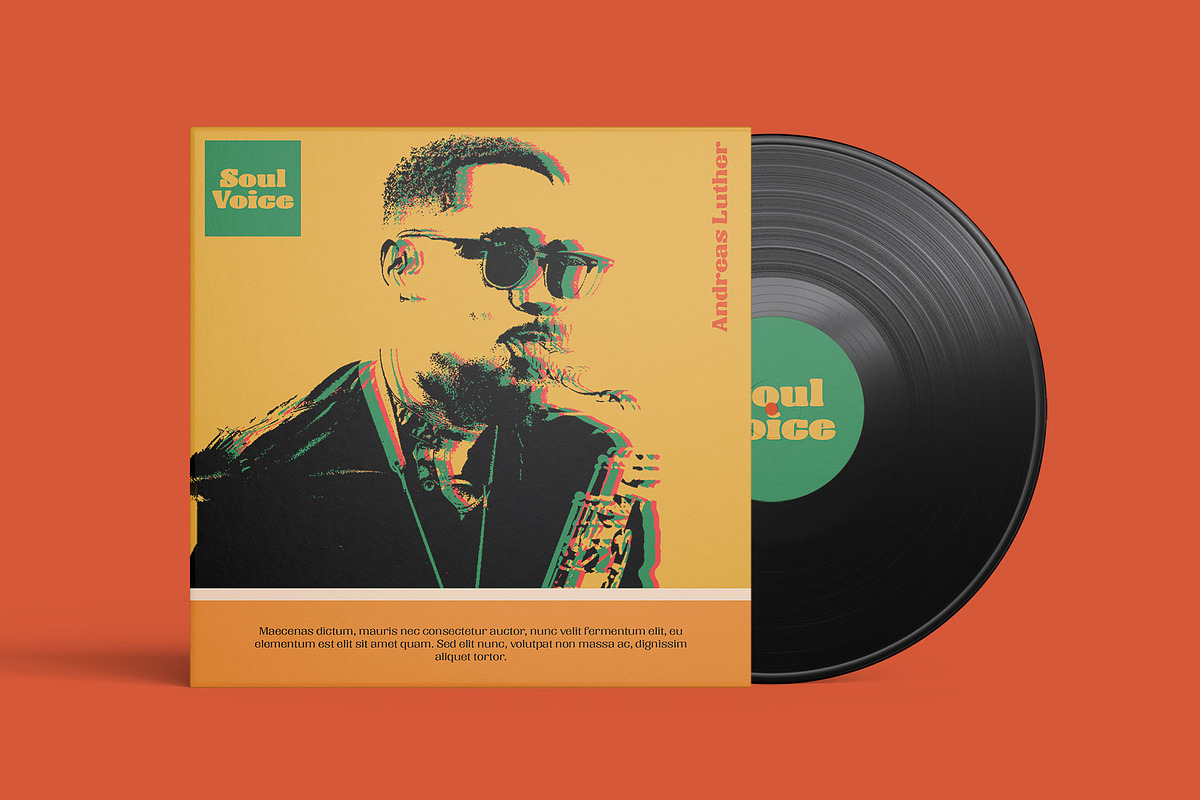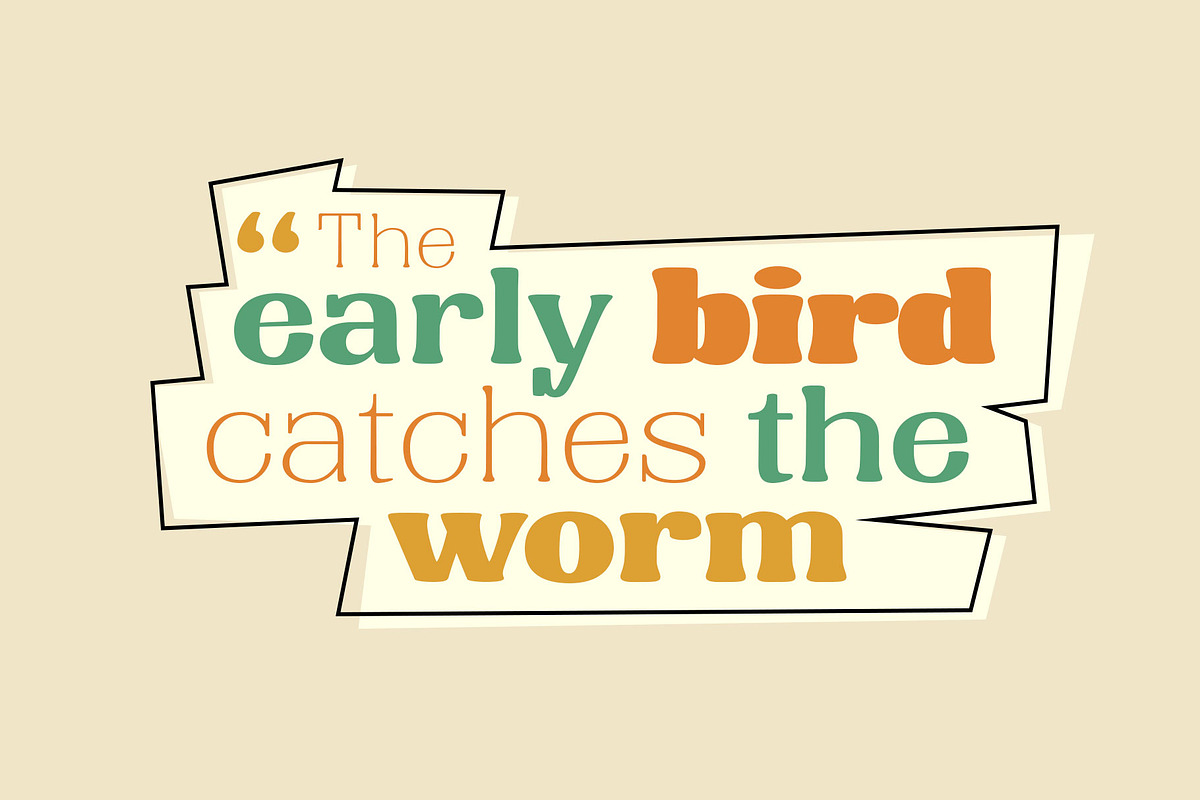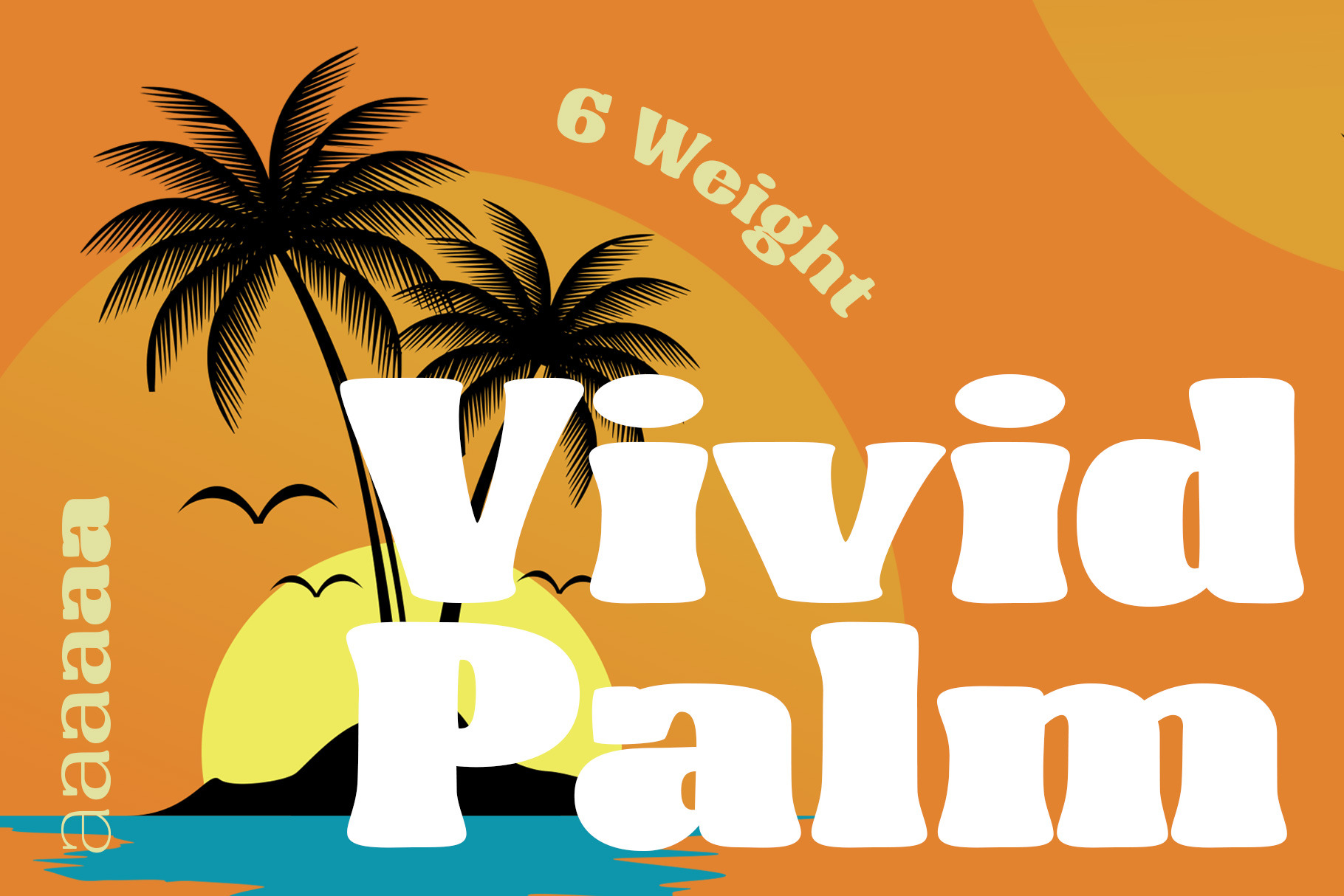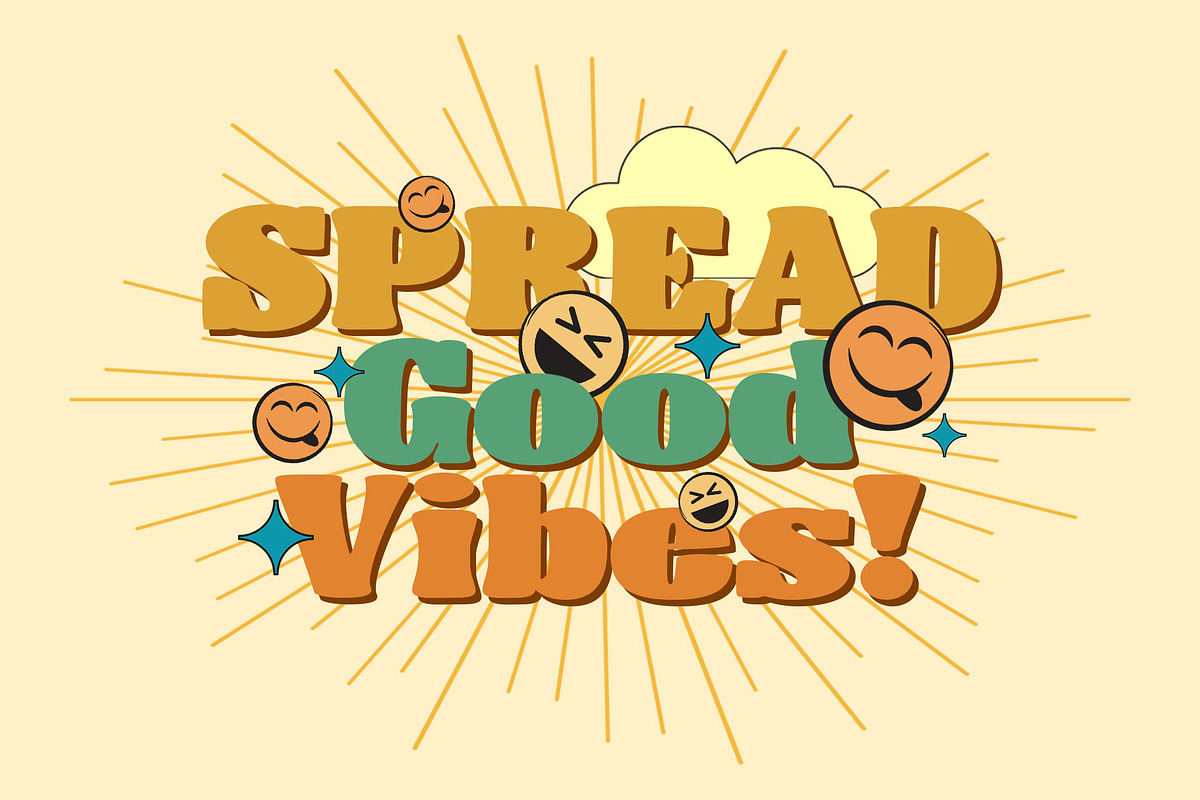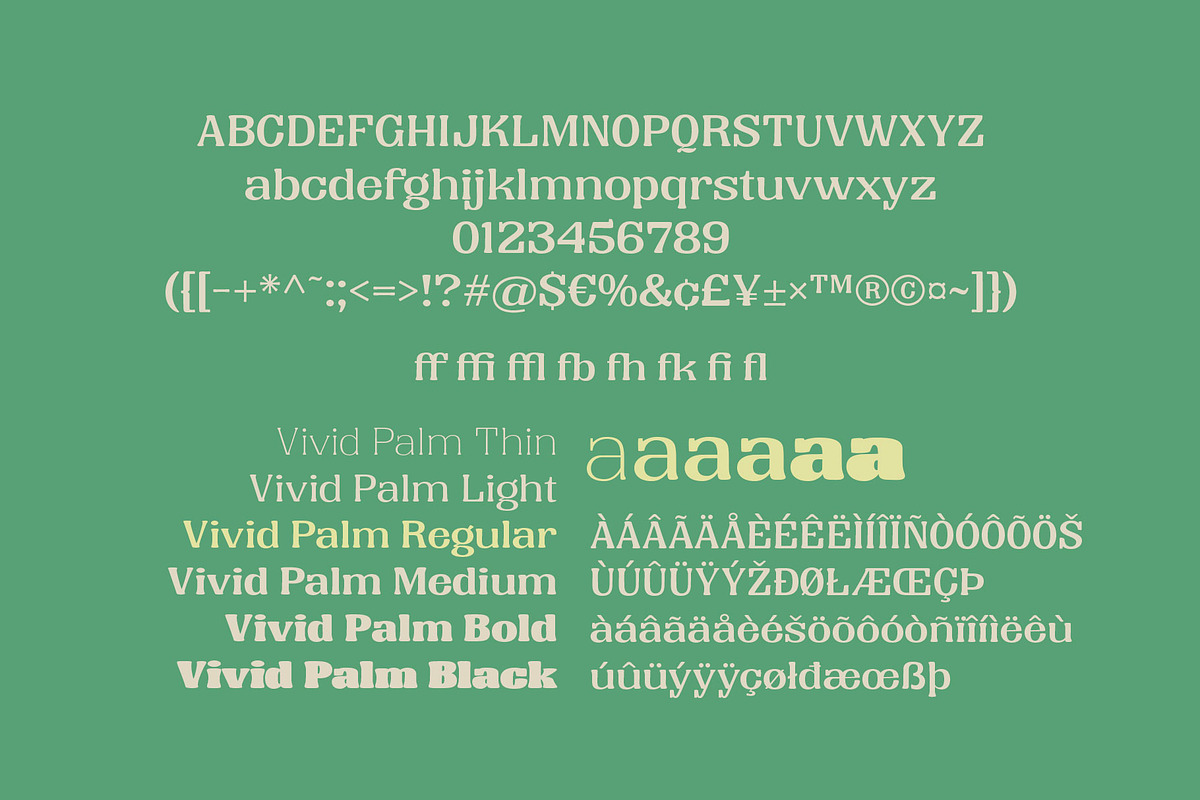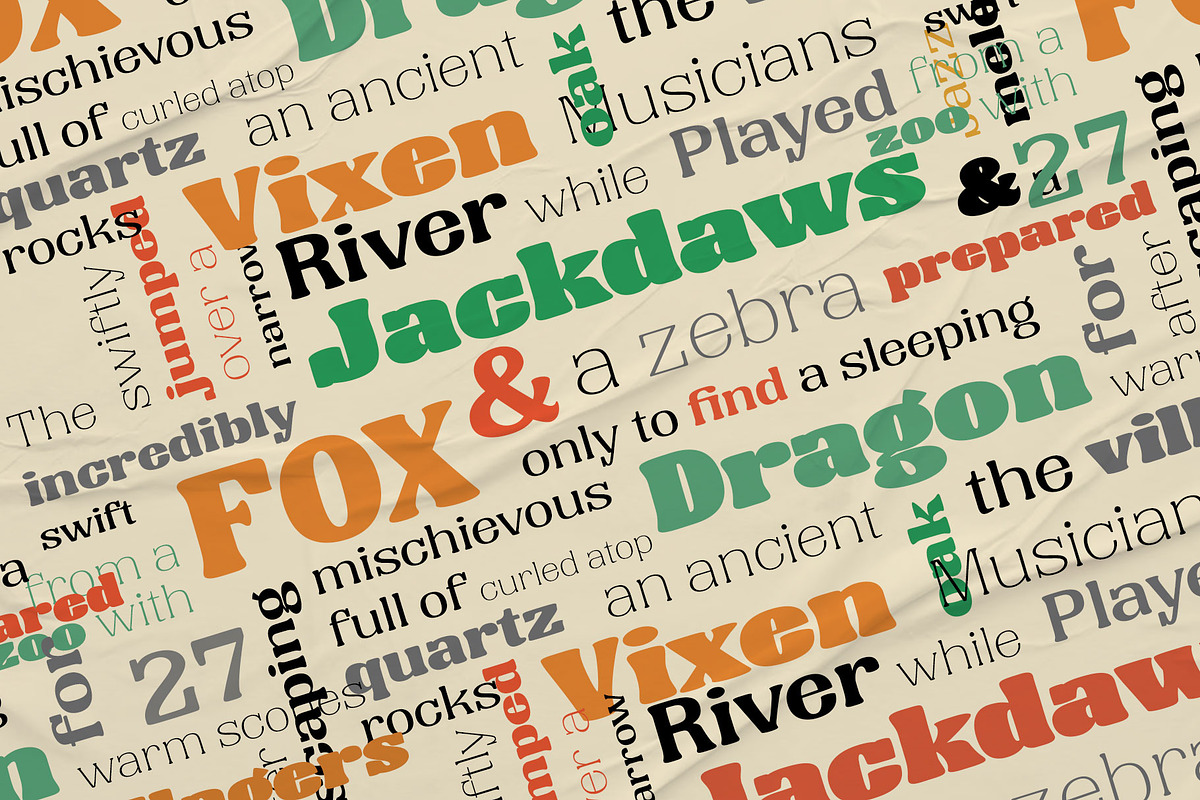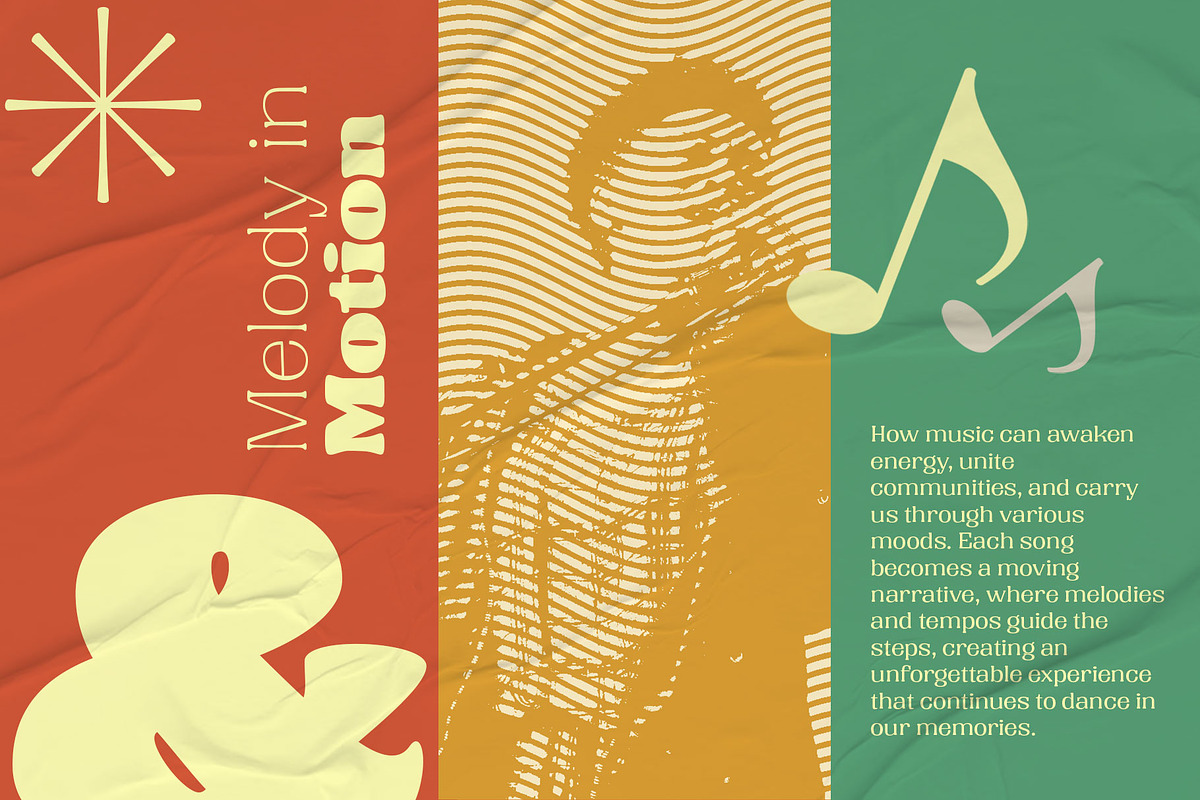
Vivid Palm | Display Font
Vivid Palm is a retro-style display font with an organic touch, designed to create a relaxed and warm vibe. Available in six weights, this font is ideal for various design projects such as headlines, posters, packaging, branding, and much more.
- 6 Weight